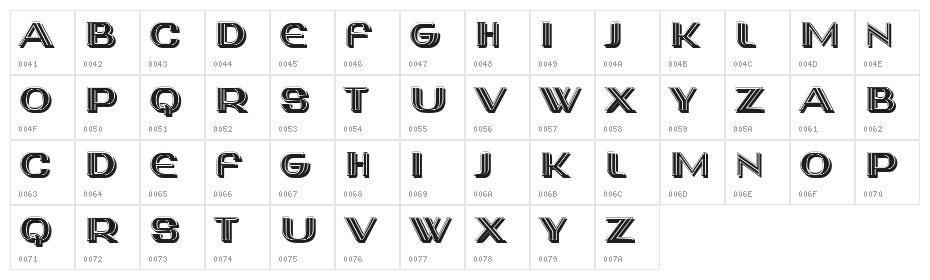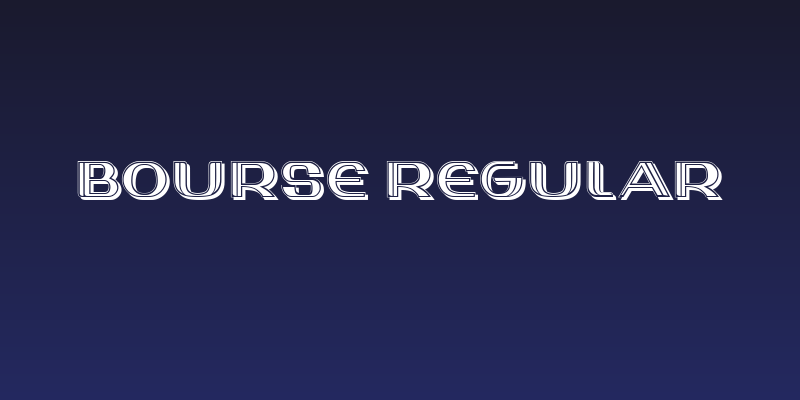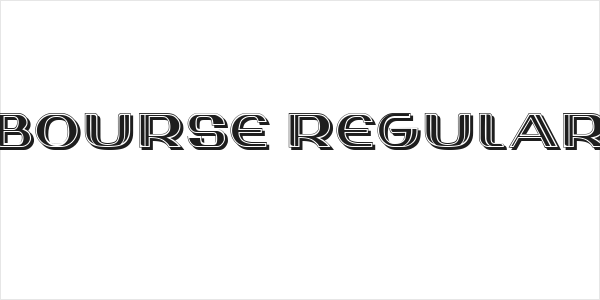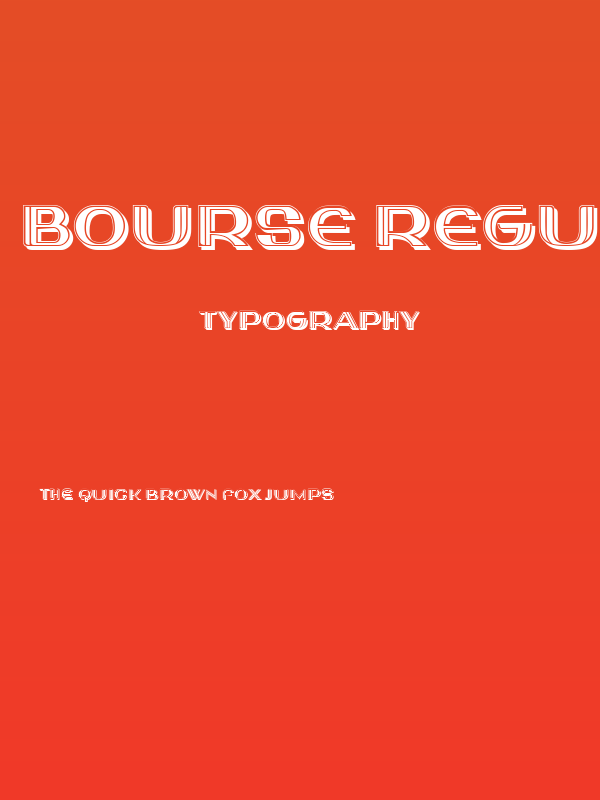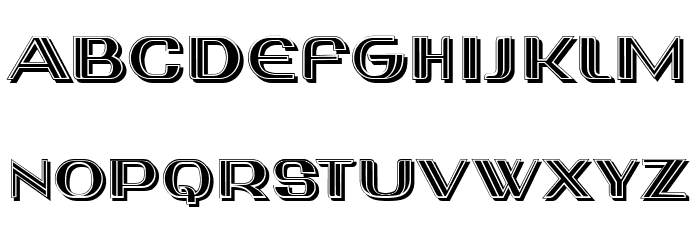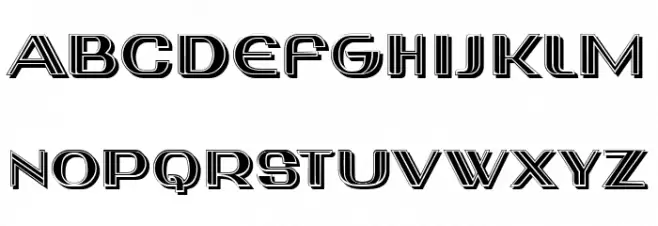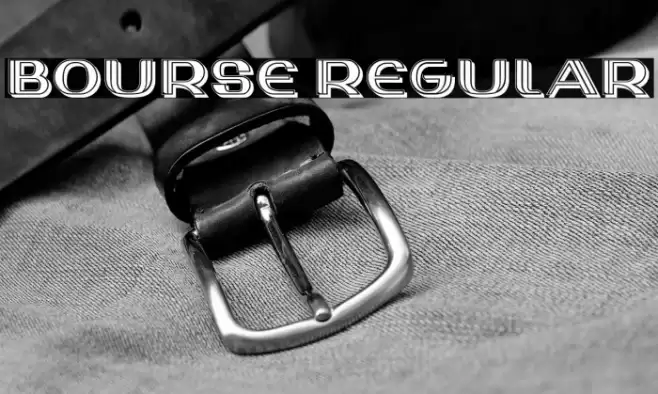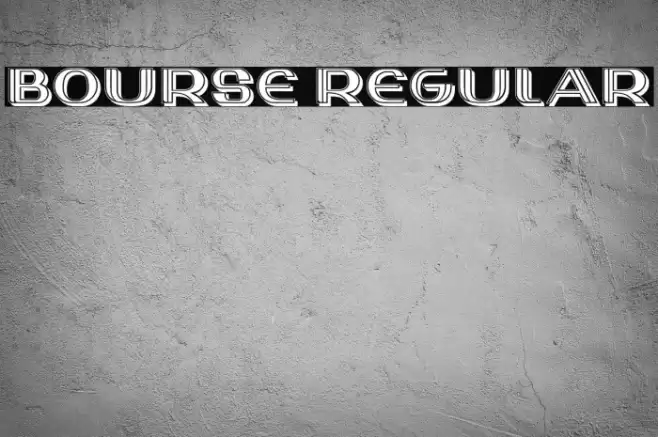
Bourse Regular Font
Bourse Regular Description
This font features a bold, geometric design with a distinct three-dimensional effect created by multiple layered outlines. The uppercase letters are structured with sharp angles and clean lines, giving it a modern and futuristic appearance. The font's unique style is characterized by its intricate detailing and strong visual impact, making it stand out in any design. The consistent width and height of the characters contribute to a balanced and uniform look, while the layered outlines add depth and complexity. This font is ideal for projects that require a striking and memorable typeface.
| Proposed Projects | Ideal for branding, posters, headlines, and any design requiring a bold, futuristic look. |